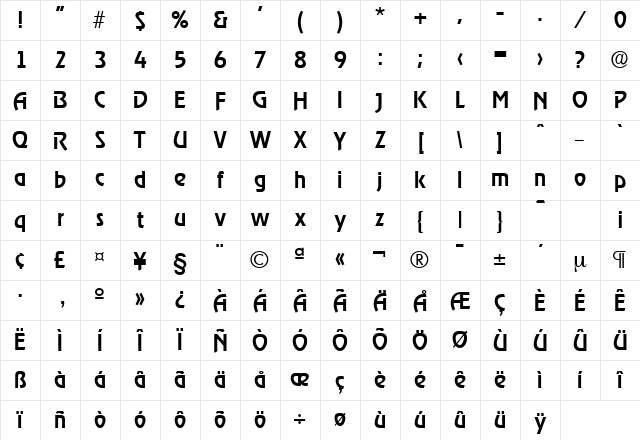
Ragtime-Serial-Medium Regular
Complete Ragtime-Serial-Medium Regular glyph index. Displaying only characters natively supported by Ragtime-Serial-Medium Regular font.
Design Context for Ragtime-Serial-Medium
Ragtime-Serial-Medium is a composed and adaptable typeface that performs quietly and consistently across a wide range of design contexts.